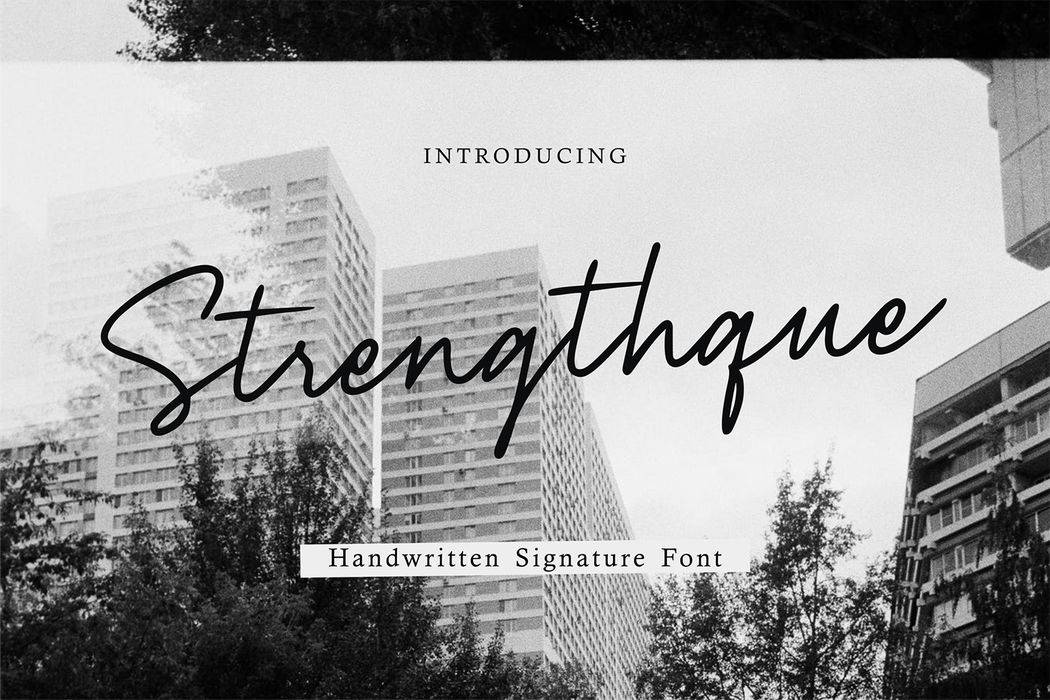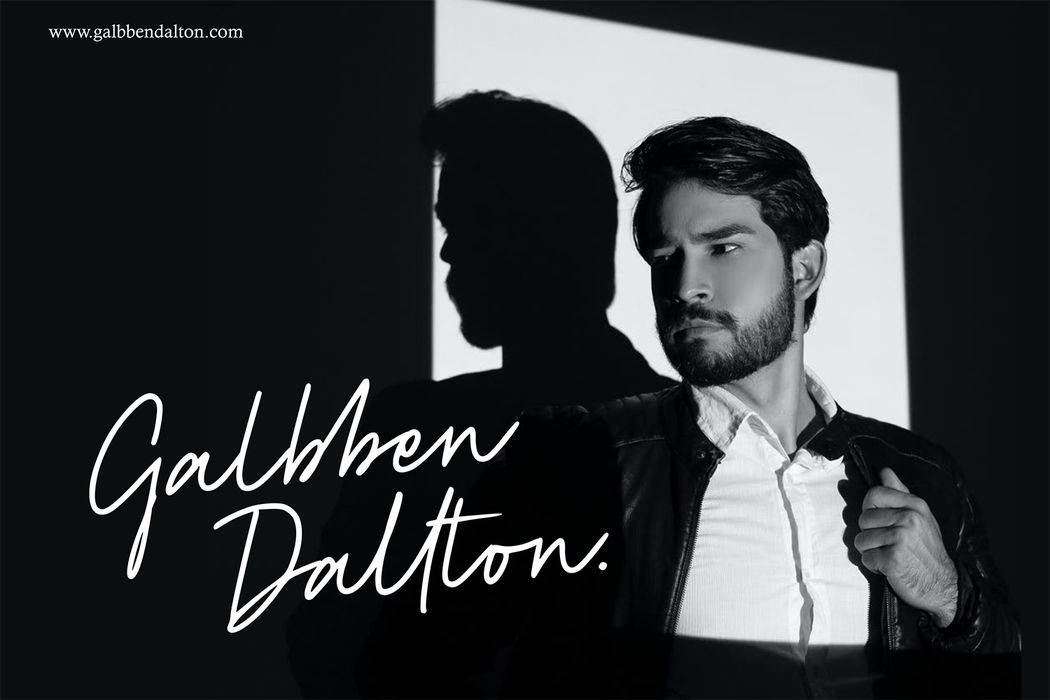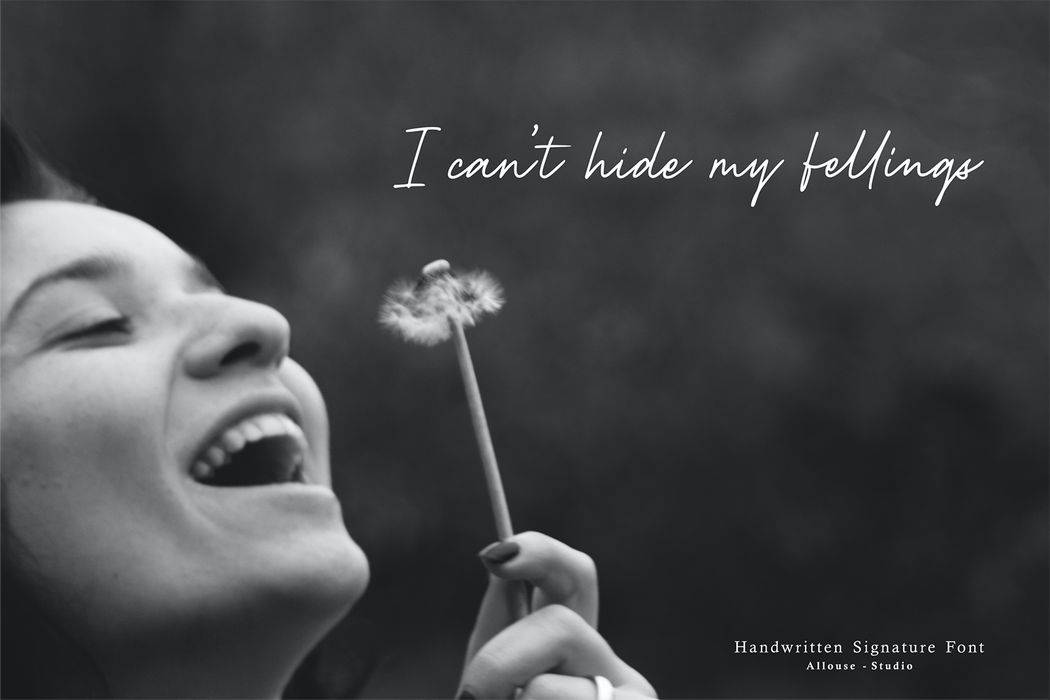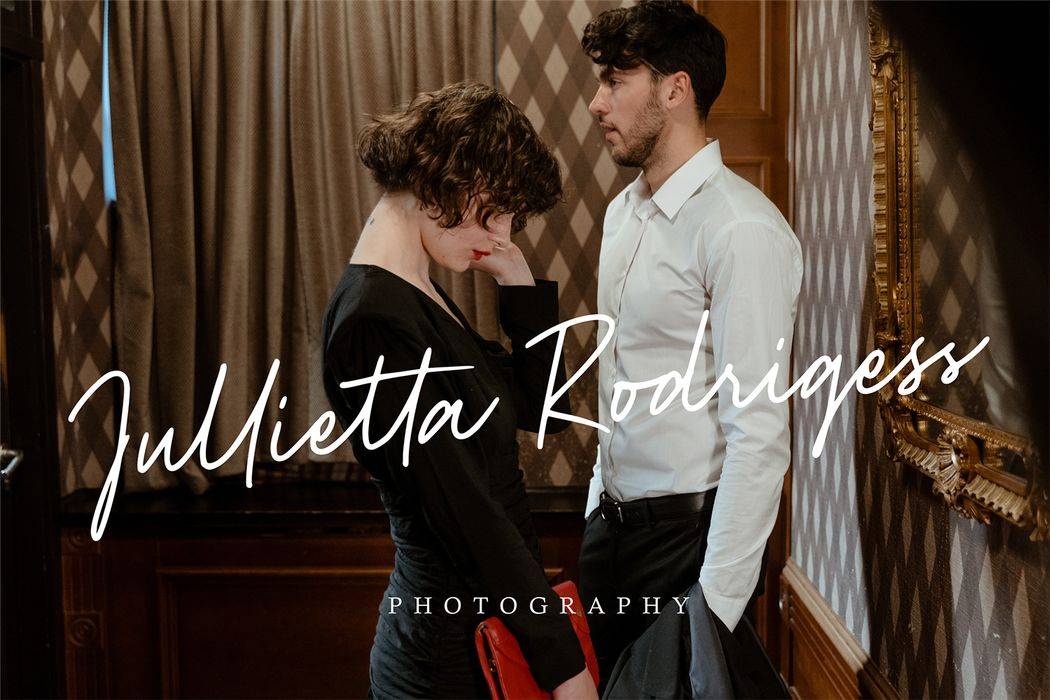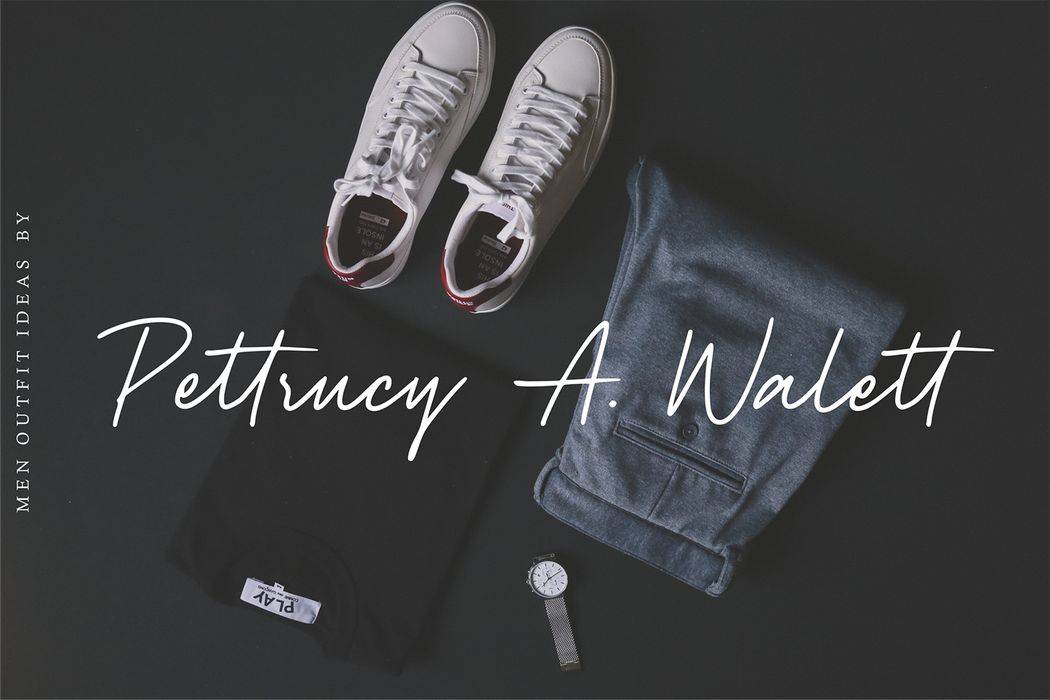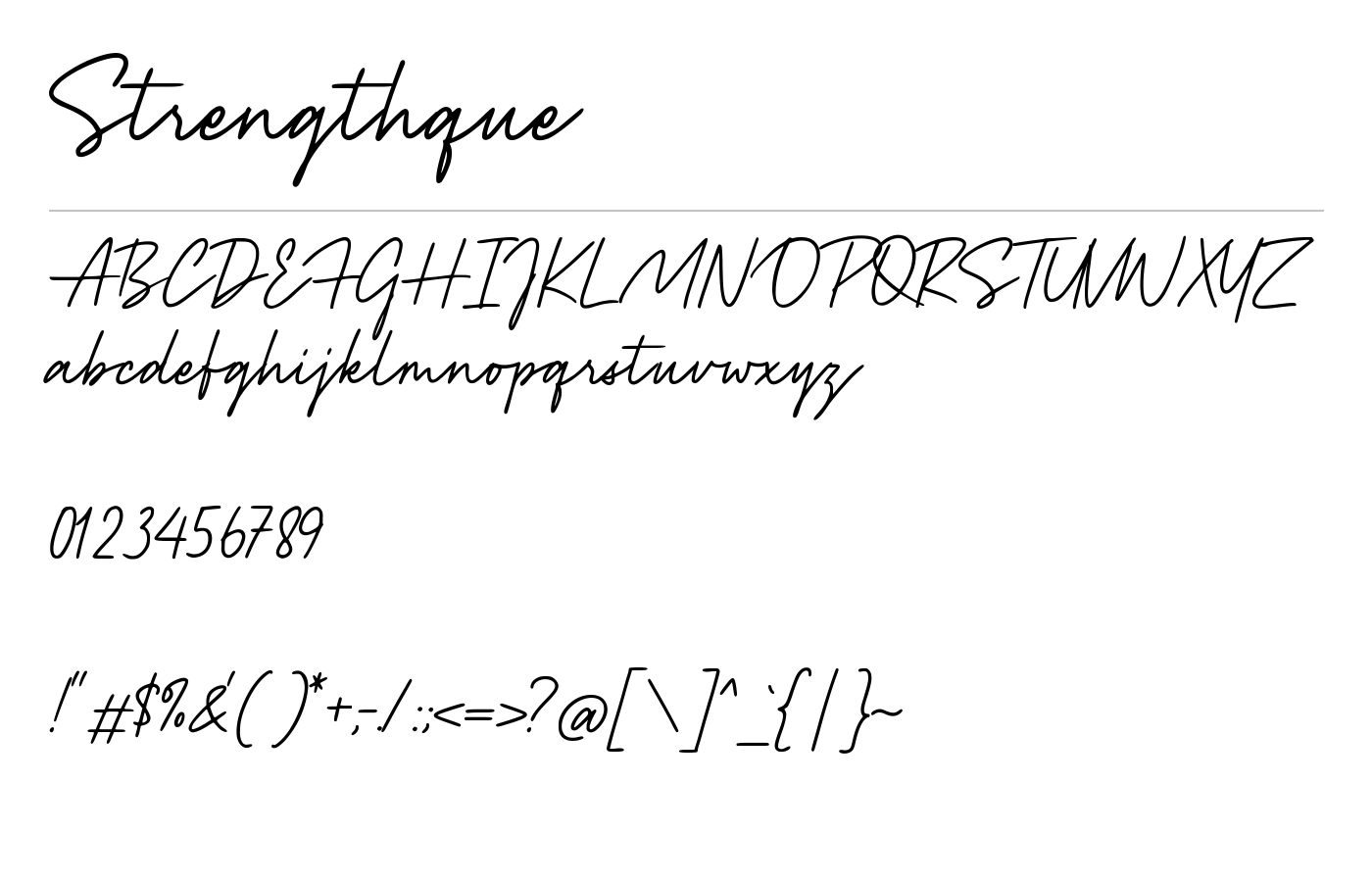
Strenghtque is a delicate, handwritten script font with a casual yet refined feel, featuring slender strokes and subtle variations in line thickness that create a natural, flowing appearance. Its tall, narrow letterforms and slightly angular shapes lend it an elegant and personal touch, making it perfect for invitations, branding, and creative projects that seek a stylish, approachable vibe. This font works best in headlines or short texts where its unique character can shine without losing readability.
Strenghtque Font
About Strenghtque Font